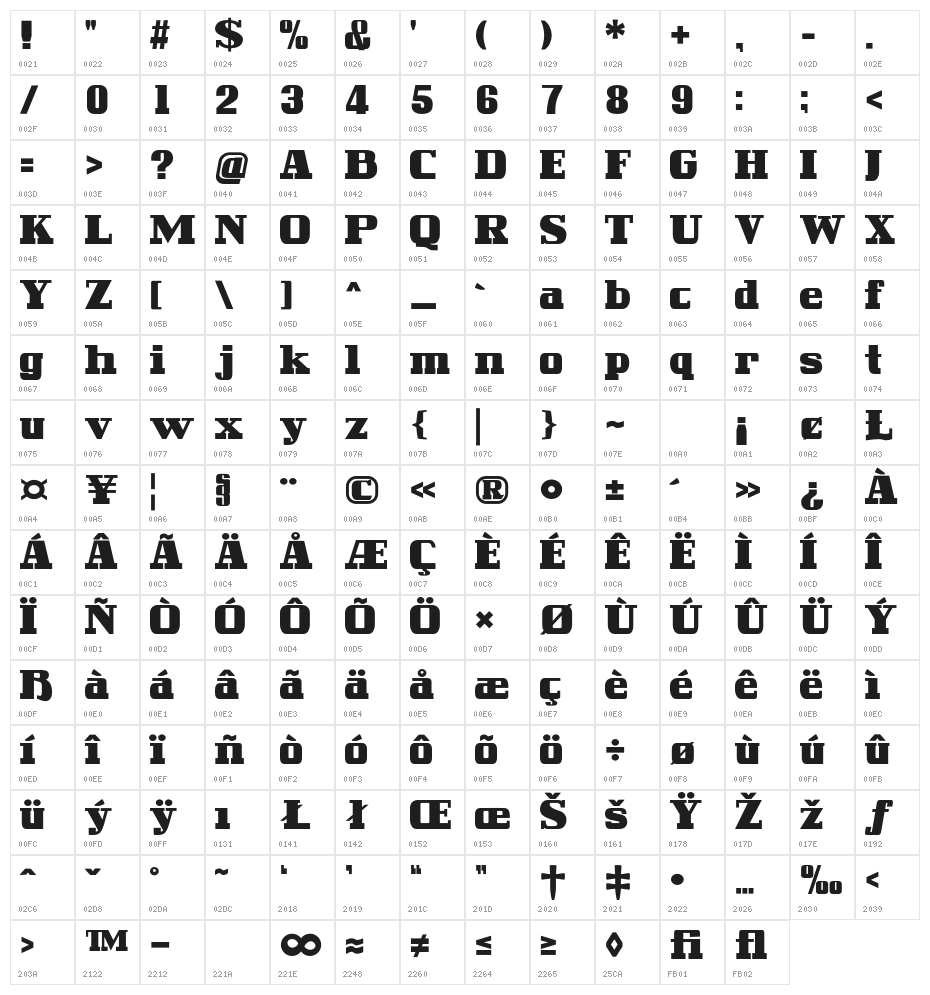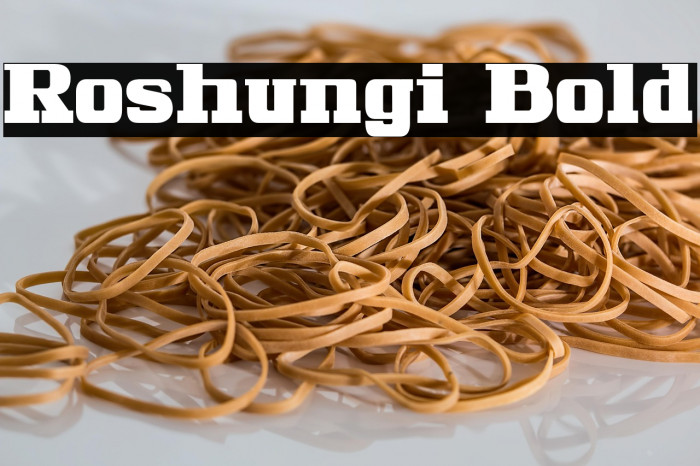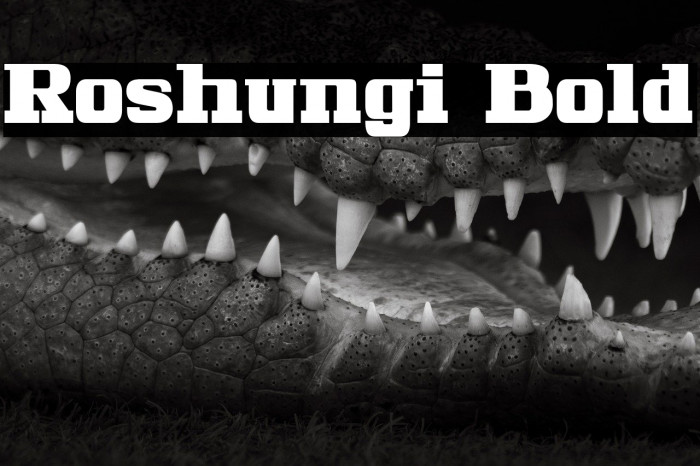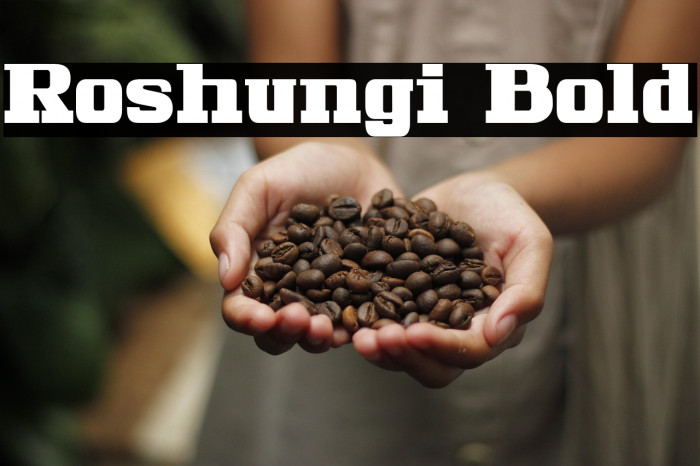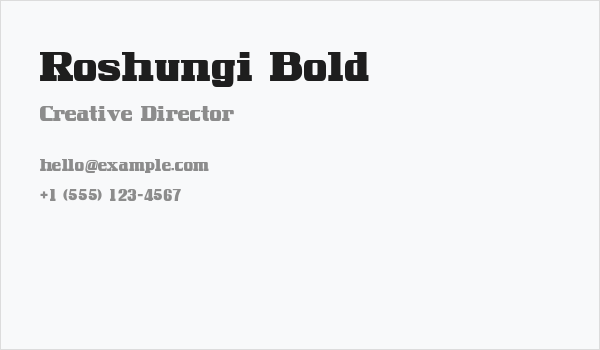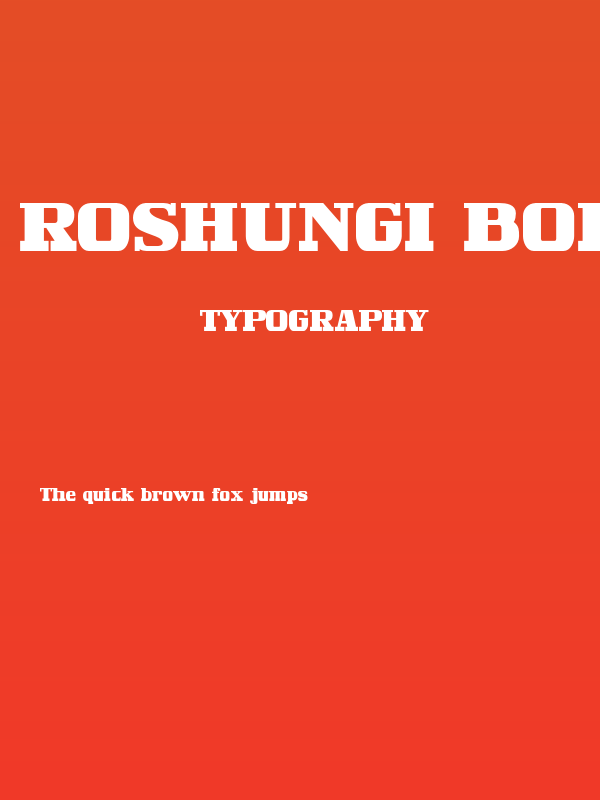
Roshungi Bold Font
Roshungi Bold Description
This font features bold, strong characters with a robust and commanding presence. The uppercase letters are particularly striking, with thick strokes and a solid, slab serif design that conveys strength and stability. The lowercase characters maintain the same boldness, ensuring consistency across text. Numbers and special characters are equally bold, making them stand out effectively. The overall design is clean and impactful, suitable for making a statement. The font's style is both modern and classic, with a touch of vintage appeal due to its slab serif characteristics.
| Overall Style | Modern, Classic |
| Proposed Projects | Ideal for headlines, posters, branding, and any project requiring a bold statement. |